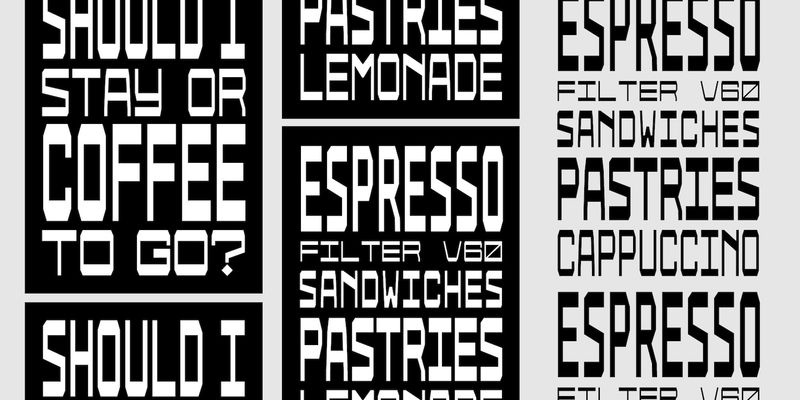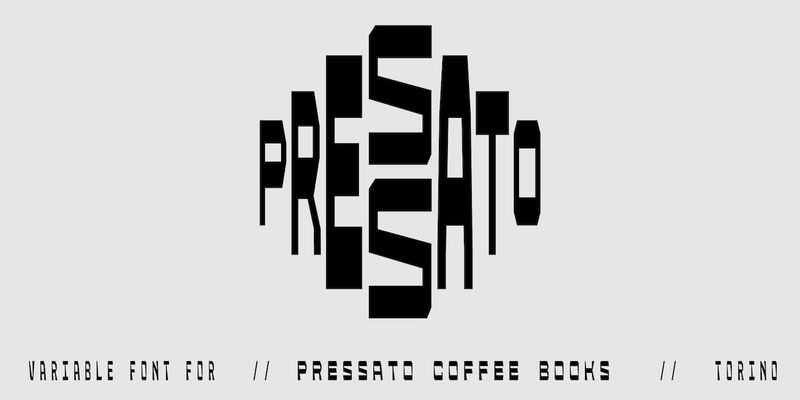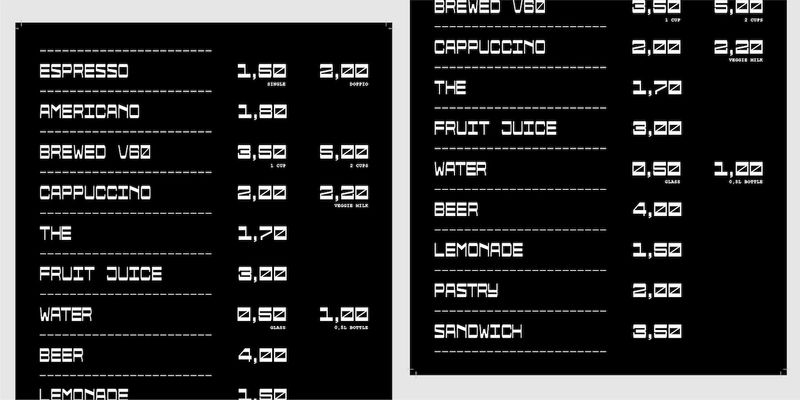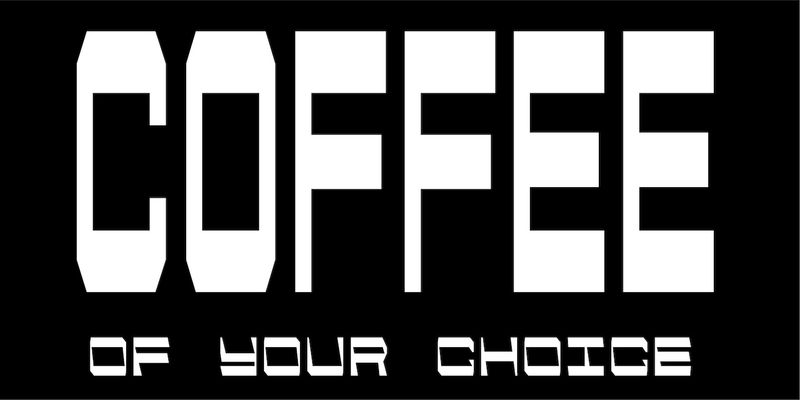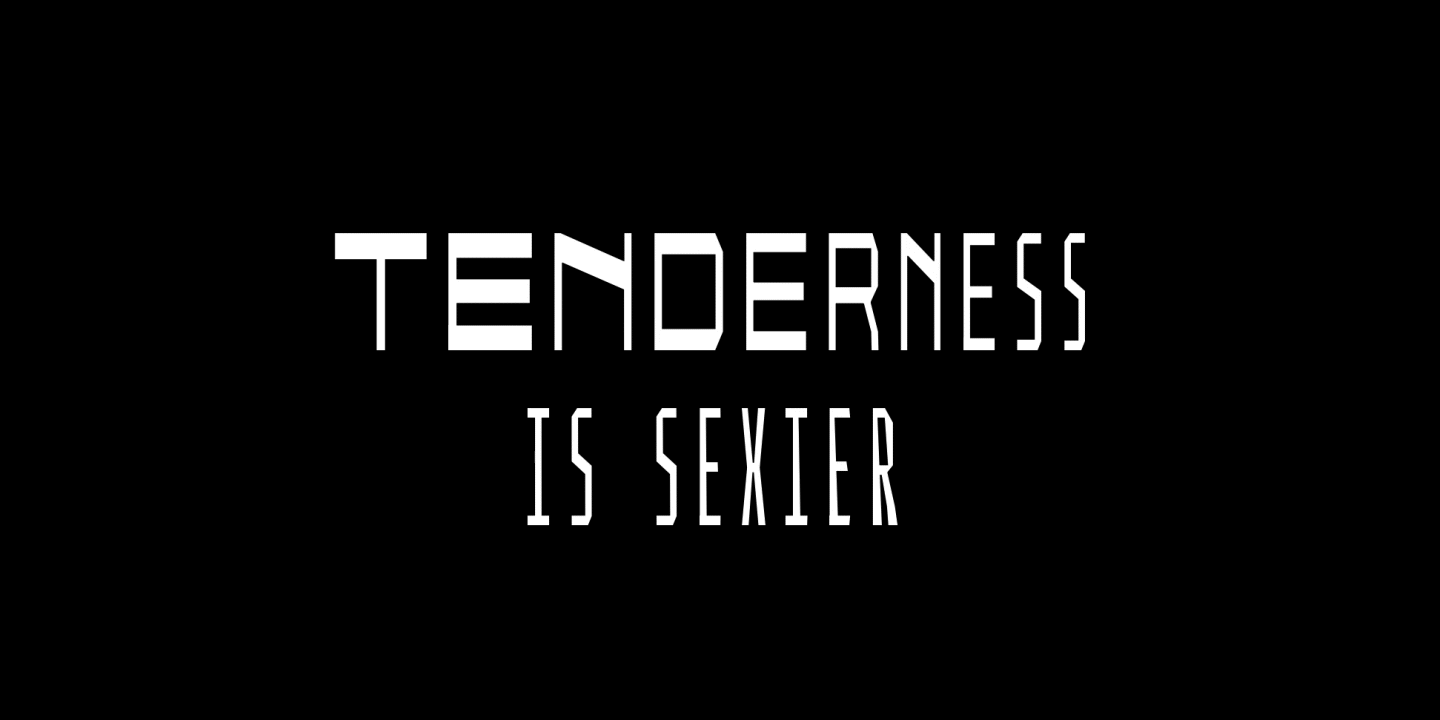
A dynamic and innovative typeface meticulously crafted in collaboration with Pressato Coffee Bookshop.
This font boasts 3 axes—weight, width, and slant—providing designers with unparalleled flexibility and control over their typographic compositions.